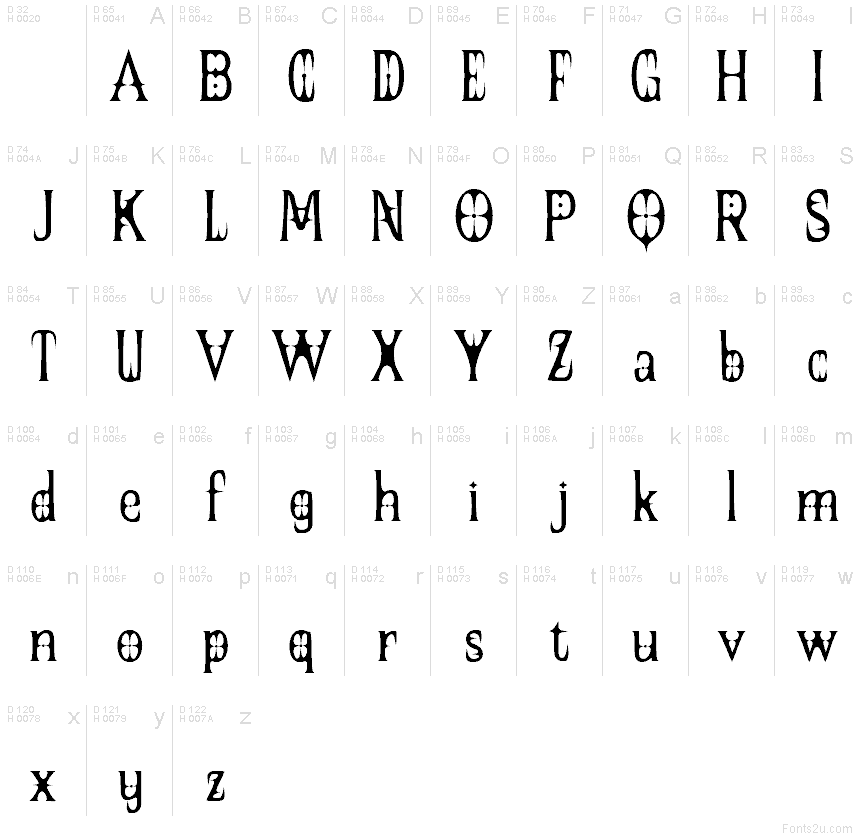
CSCasketDrawn-Regular Demo
CS Casket font is a striking masterpiece by Craft Supply Co. designed with Gothic inspiration in mind. This condensed font features antique ornamental qualities, theatrical elements, and an undeniable historical charm that creates a decorative vintage look crafted to impress its viewers at first glance.